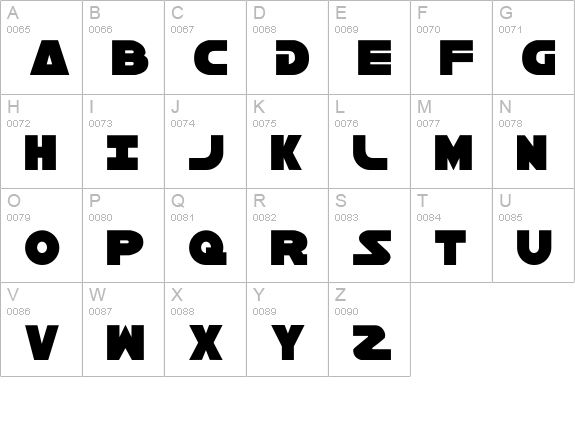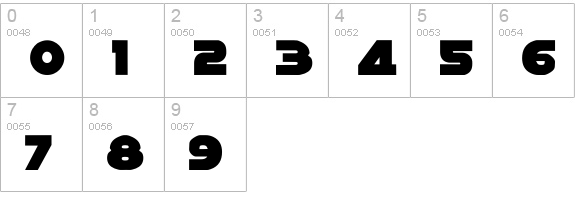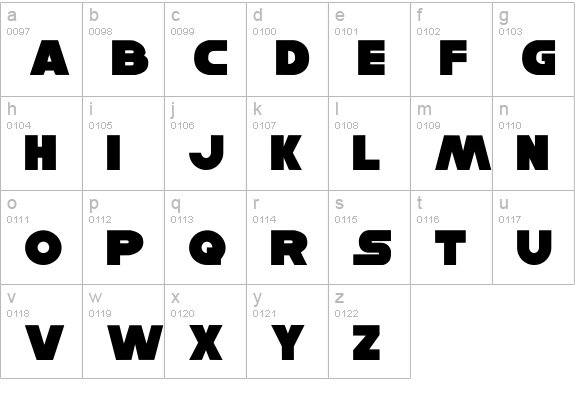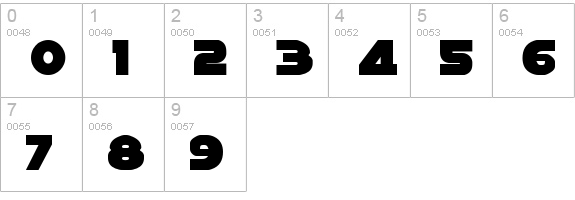
UntitledRegular Font Details
UntitledRegular is a stunning and versatile font that is sure to make a lasting impression. With its clean lines and timeless design, this font is perfect for a wide range of projects. Whether you're creating a logo, designing a website, or crafting a captivating headline, UntitledRegular will add a touch of elegance and professionalism to your work. One of the best things about UntitledRegular is that it is freely available to download at FontsMarket.com. This means that you can start using this amazing font right away, without having to spend a dime. Whether you're a professional designer or a hobbyist, this free font is a fantastic resource to have in your collection. UntitledRegular boasts a comprehensive character set, including uppercase and lowercase letters, numbers, punctuation, and special characters. This makes it incredibly versatile and suitable for a wide range of design projects. The clean and legible letters ensure that your message will be conveyed with clarity and style. The design of UntitledRegular strikes the perfect balance between modern and classic, making it a timeless choice that will never go out of style. The carefully crafted curves and precise angles give this font a unique and sophisticated look that is sure to catch the eye. Whether you're going for a sleek and contemporary vibe or a more traditional and elegant aesthetic, UntitledRegular is the perfect choice. Downloading UntitledRegular from FontsMarket.com is quick and easy. Simply visit the website, find the font, and click the download button. Within seconds, you'll have this beautiful font ready to use in your next project. And with the added bonus of it being free, there's no reason not to give it a try. In conclusion, UntitledRegular is a stunning font that is both versatile and timeless. With its clean lines, comprehensive character set, and elegant design, this font is perfect for a wide range of design projects. And with the added bonus of it being freely available to download at FontsMarket.com, there's no reason not to add this amazing font to your collection. So go ahead and elevate your designs with UntitledRegular today!